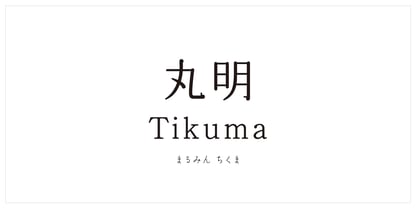
MaruminTikuma StdN
by Kinuta Font Factory
The MaruminTikuma StdN Font Family was designed by and published by Kinuta Font Factory. MaruminTikuma StdN contains 1 styles. More about this family
The kana characters in Marumei Tikuma are lighter than the kanji characters. This expresses the flavour of ancient calligraphy with the flowing movement of the lines. The combination of elegant kana characters with curved elements and kanji characters with geometric shapes creates a bold and fresh look.